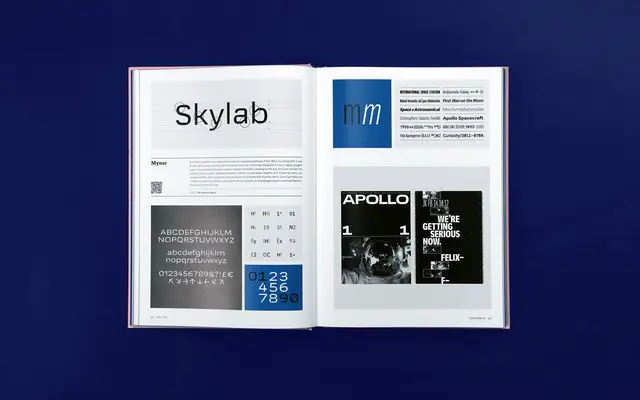
A squarish geometric sans drawing on OCR-A and OCR-B, available in seven weights and six widths with 84 styles in total.
Built around the machine-readable typefaces of the 1950s, Mynor pairs the clean rectilinear forms of OCR-A and OCR-B with smoothed, humanist curves to soften the technical edge. Seven weights run from Thin to Black, each with a matching italic, across six widths from Condensed to ExtraWide. Each style carries 450 characters with five numeral variants and full OpenType support for Western, Southern and Central European languages.
Mynor draws on OCR-A and OCR-B machine-readable typefaces of the 1950s, combining squarish geometric construction with smooth humanist curves. The blend of digital straight lines and rounded contours places it firmly in the geometric sans category with a distinct technical inflection.